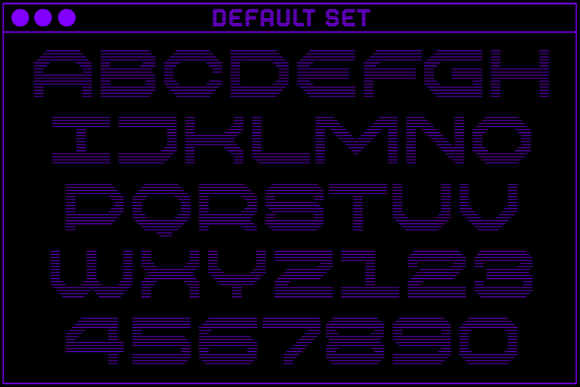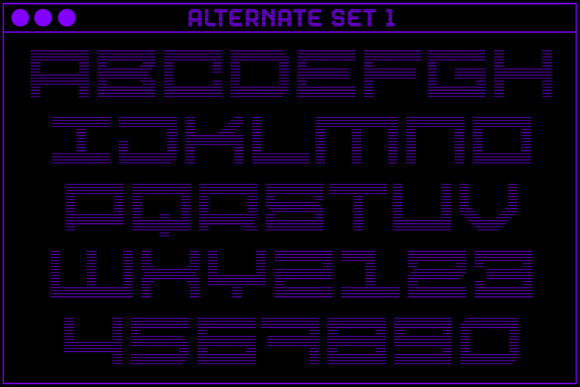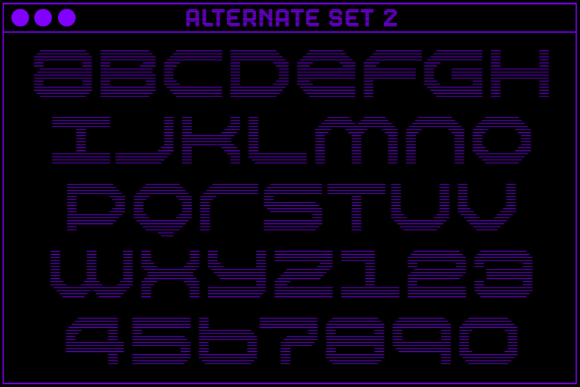
Introduction to MultiType Rows Ample 3 Font
MultiType Rows Ample 3 is a cool, uniquely shaped, pixelated display font.
Add a distorted and trendy touch to your designs with this unusual pixel font MultiType Rows Ample 3 is PUA encoded which means you can access all glyphs and swashes with ease.